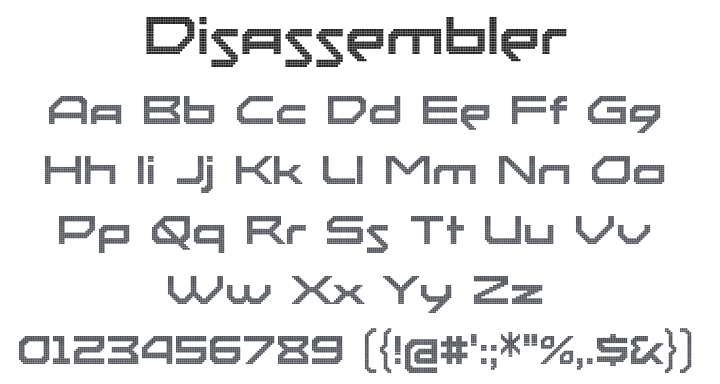
Disassembler Font
About Disassembler
Disassembler is a precision-built tribute to the typography of the 8-bit frontier. It doesn't merely imitate the look of early computing — it recreates it with obsessive fidelity. Every letterform is plotted on a true pixel grid, every curve stripped to its bare essentials, and every alignment locked to the chunky spacing of vintage displays. This is the language of Sinclair screens, dusty arcade monitors, and flickering terminals — rendered with modern reliability but zero compromise on authenticity.